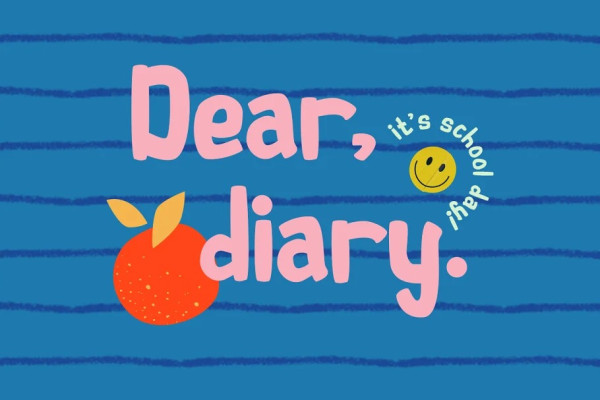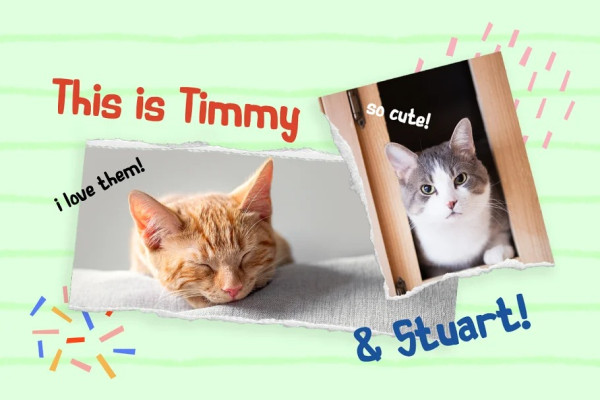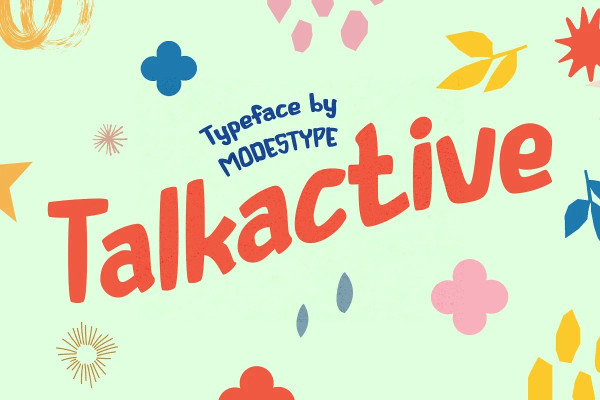
Talkactive Font
Talkactive Font – Kids Font. Being active as a child is a must, they need to explore the world with no fear. Talkactive is here to guide them in the right direction. The irregular shape is meant to be, to portray the new skills that kids learn in the first time. But, the read-ability is a top notch with no worry of misreading.
Suit perfectly for educational books market, online games, teens event poster, school supplies font, poster, movie title, youtube covers, youtube thumbnails, social media page covers and so on…